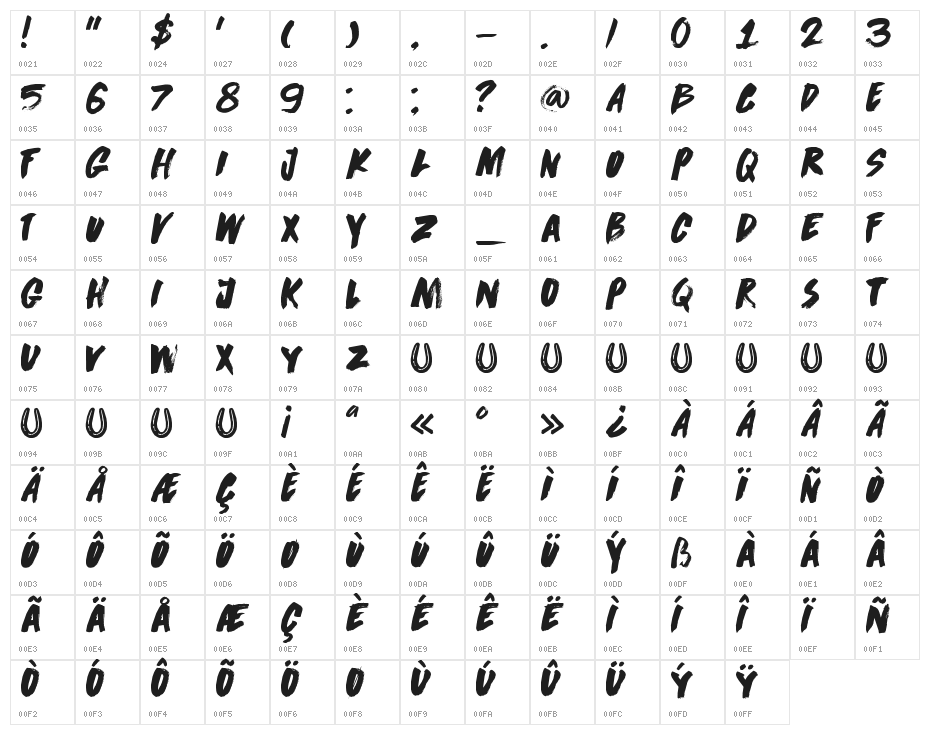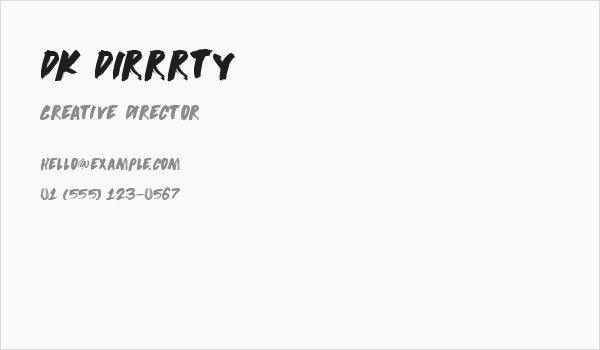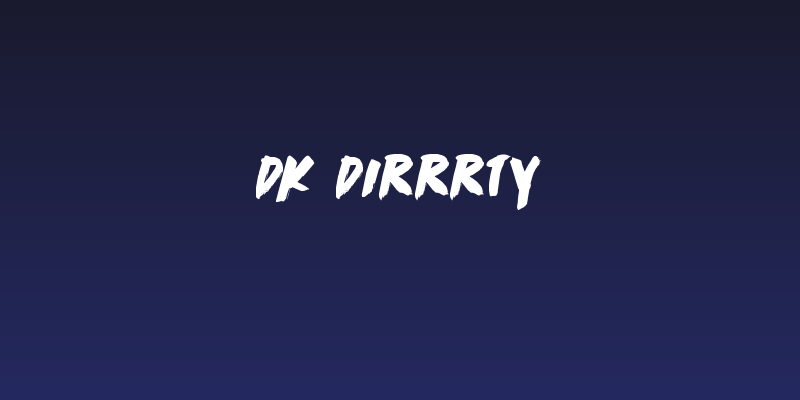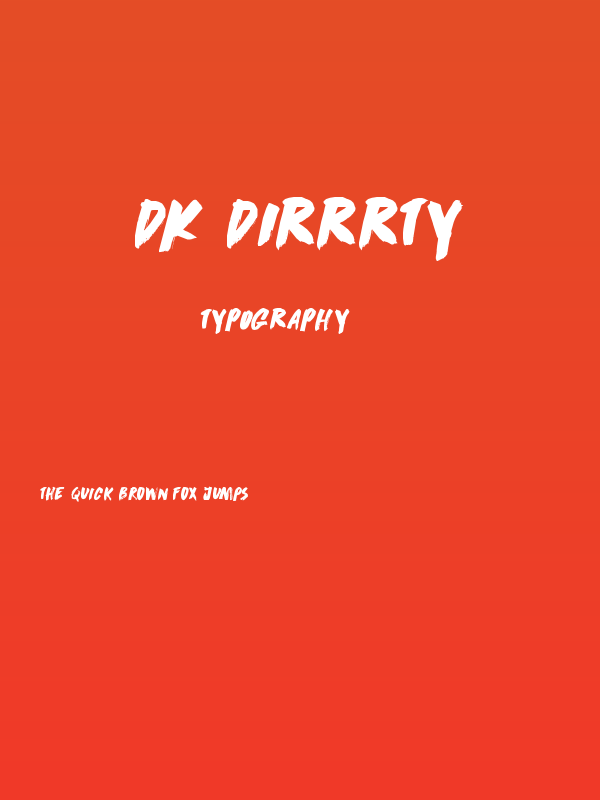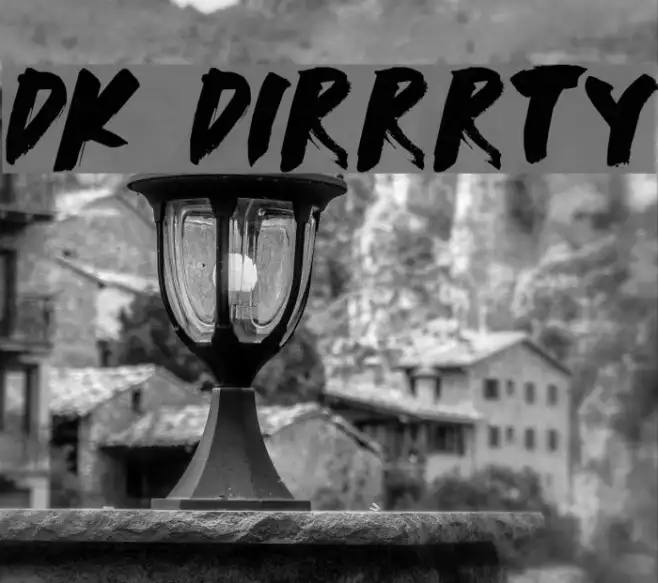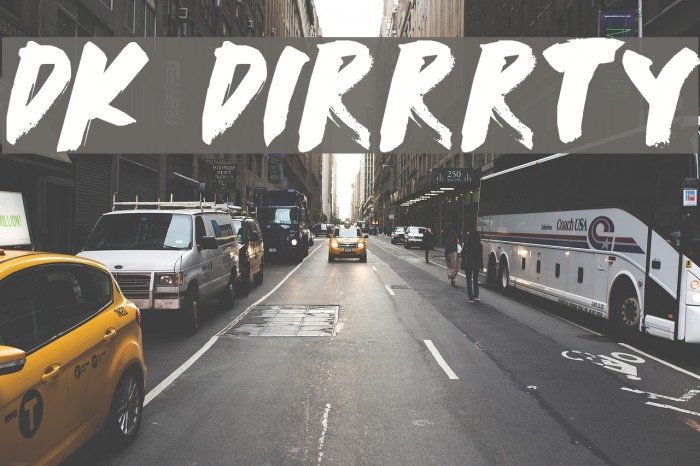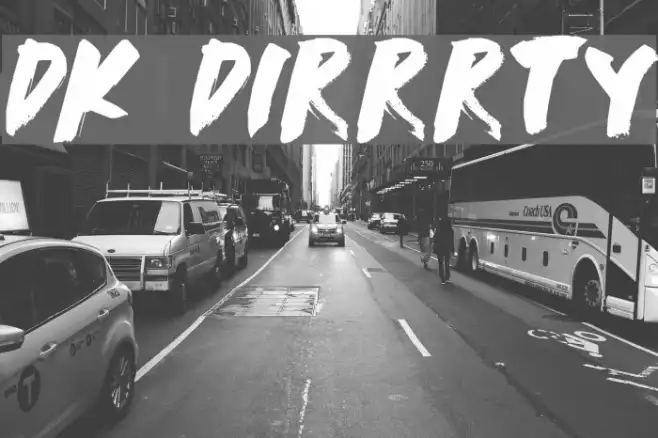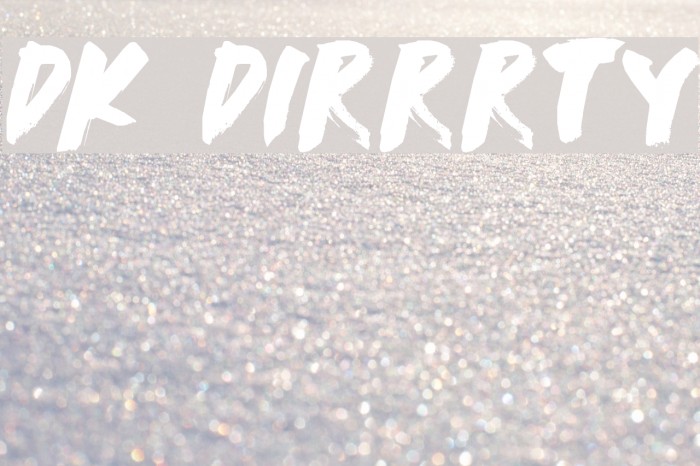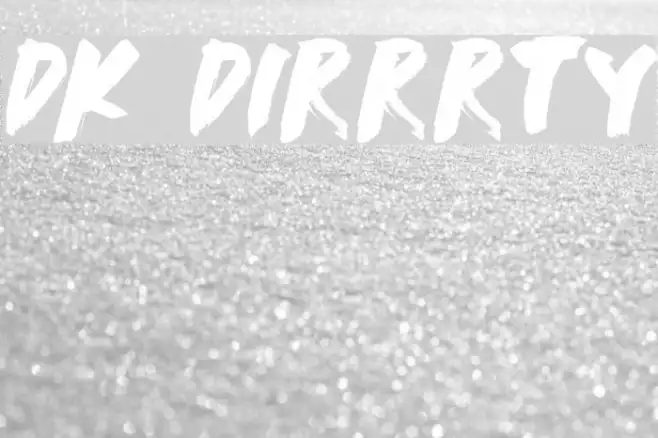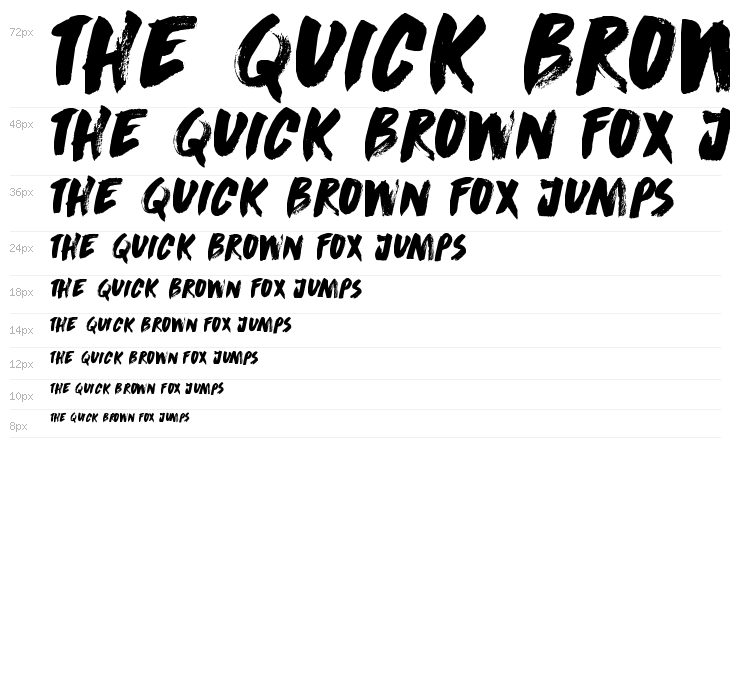
DK Dirrrty Font
DK Dirrrty Description
This font exudes a bold and energetic vibe, characterized by its brushstroke appearance that gives it a raw, hand-painted feel. The letters are thick and dynamic, with irregular edges that add to the overall rugged aesthetic. Each character seems to have been crafted with a swift, confident motion, resulting in a lively and expressive typeface. The uppercase and lowercase letters maintain a consistent style, while the numbers and special characters complement the alphabet with the same vigorous brushstroke quality. This font is perfect for projects that require a strong, impactful visual presence.
| Proposed Projects | Ideal for posters, album covers, streetwear branding, and any design needing a bold, artistic touch. |